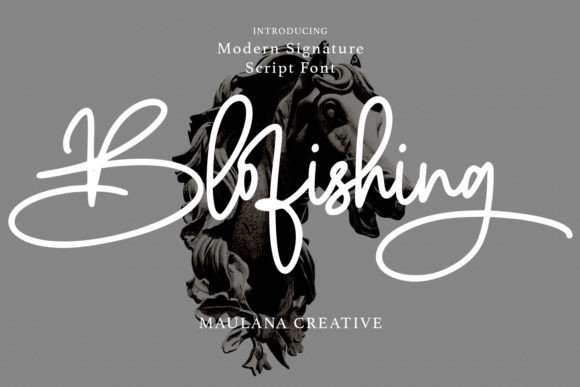
Enter the Blofishing Font, a beautiful and light handwritten font that adds a touch of luxury and sophistication to any design project. With its unique feel and stunning impact, this font is sure to take your creations to the next level. Whether you’re a seasoned designer or just starting out, the Blofishing Font is a valuable addition to your toolkit, offering endless possibilities for creative expression and visual storytelling.
- Unique Characteristics: Features a unique, hand-drawn style with subtle texture and imperfections, giving it a natural, organic feel
Blofishing Font Review
I recently had the chance to work with the Blofishing Font, and I must say it’s a unique and intriguing choice for any designer. Here are my thoughts on its strengths and weaknesses.
- Unique aesthetic: Blofishing Font has a distinctive look that can add a touch of whimsy to any project. Its irregular shapes and unconventional letterforms can be a great choice for designs that need to stand out.
- High legibility: Despite its unusual appearance, the font is surprisingly easy to read, even at smaller sizes.
- Customization options: Blofishing Font offers a range of OpenType features, including ligatures and swashes, which can be used to add an extra layer of personality to your designs.
- Limited font family: Blofishing Font is a single-weight font, which means it may not be suitable for projects that require a range of weights and styles.
- Not suitable for body text: While Blofishing Font can work well for headings and titles, it’s not the best choice for large blocks of body text due to its irregular shapes and low x-height.
Blofishing Font is a great choice for designers who want to add a touch of personality to their projects. Its unique aesthetic and high legibility make it a great choice for headings and titles, but it may not be suitable for more traditional or formal designs. With some careful planning and customization, Blofishing Font can be a great addition to any designer’s toolkit.
– Using it sparingly to add a touch of elegance to your design.
– Pairing it with bold fonts to create a striking contrast.
– Using it in titles or headings to draw attention.
– Logo design
– Branding materials
– Titles and headings
– Unique typography
Compared to Blofishing Font, Ribeye Font is more modern and clean, while Blofishing Font has a more rustic and vintage feel. Ribeye Font is ideal for digital products, whereas Blofishing Font is more suitable for traditional or vintage-themed designs.